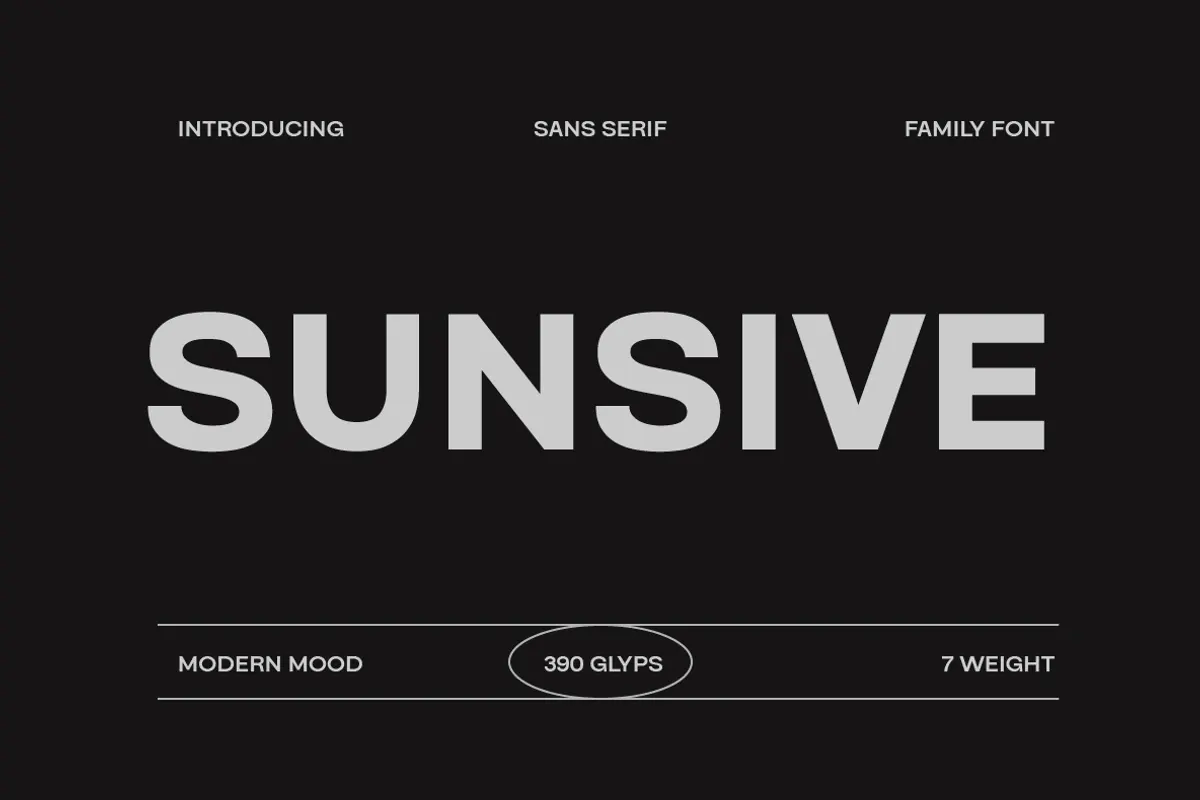
Sunsive Font Free Download is a modern and stylish font family that combines clean lines with subtle curves, creating a fresh and contemporary look. Perfect for branding, web design, editorial layouts, product packaging, and creative headlines, Sunsive offers a versatile typographic solution for designers who value simplicity with a touch of elegance.
The Sunsive family includes multiple weights and styles, giving you the flexibility to build strong visual hierarchies across various platforms. Its sleek, minimalist design ensures excellent readability while maintaining a distinctive character that sets your work apart.